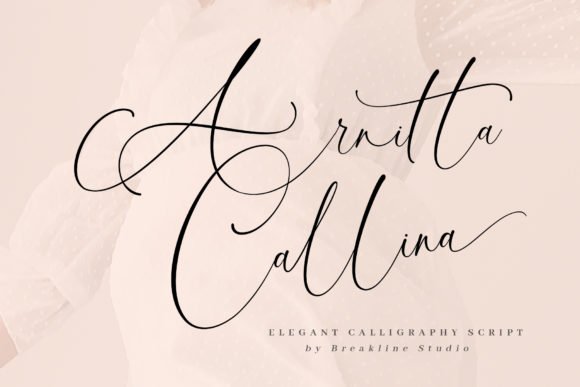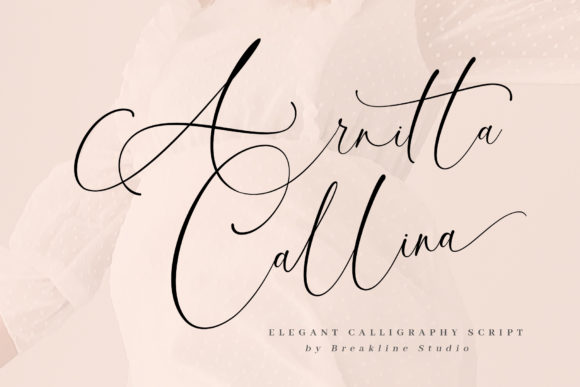
This download includes a script-style font featuring elegant, handwritten strokes ideal for crafting, vinyl cutting, and printable media. Arnitta Callina blends sophistication with approachability, making it ideal for names, quotes, cards, and branding visuals. As a font entity, it installs easily and works across major design platforms and cutting machine software. Additionally, its versatility allows for seamless integration into both digital and print projects, offering designers a range of creative possibilities. For those interested in further exploring its features, be sure to check the atunia tursina font details, which outline its unique elements and stylistic variations. Whether for personal use or commercial projects, this font enhances any design with its distinctive charm.
Its flowing letterforms and natural slant make it especially suited for feminine designs, wedding projects, boutique branding, and personalized gifts that need a soft, custom-made vibe.
- Crafters using Cricut, Silhouette, or other plotters
- Designers creating romantic or feminine branding
- Print-on-demand creators developing product lines
- Educators designing decorative classroom materials
- Hobbyists making cards, signs, and gifts
- Custom decals for mugs, bags, and glassware
- Wedding invitations and save-the-date cards
- Printable quotes and nursery wall art
- Logo marks and boutique product packaging
- Gift tags, thank you notes, and stickers
- Romantic script with signature-style charm
- Perfect for cutting machines and printable designs
- Looks beautiful on both small and large items
- Versatile for branding, decor, and custom gifts
Q: Can I use this font for wedding projects and feminine branding?
A: Yes, Arnitta Callina is perfect for elegant printables, event materials, and boutique-style logos.